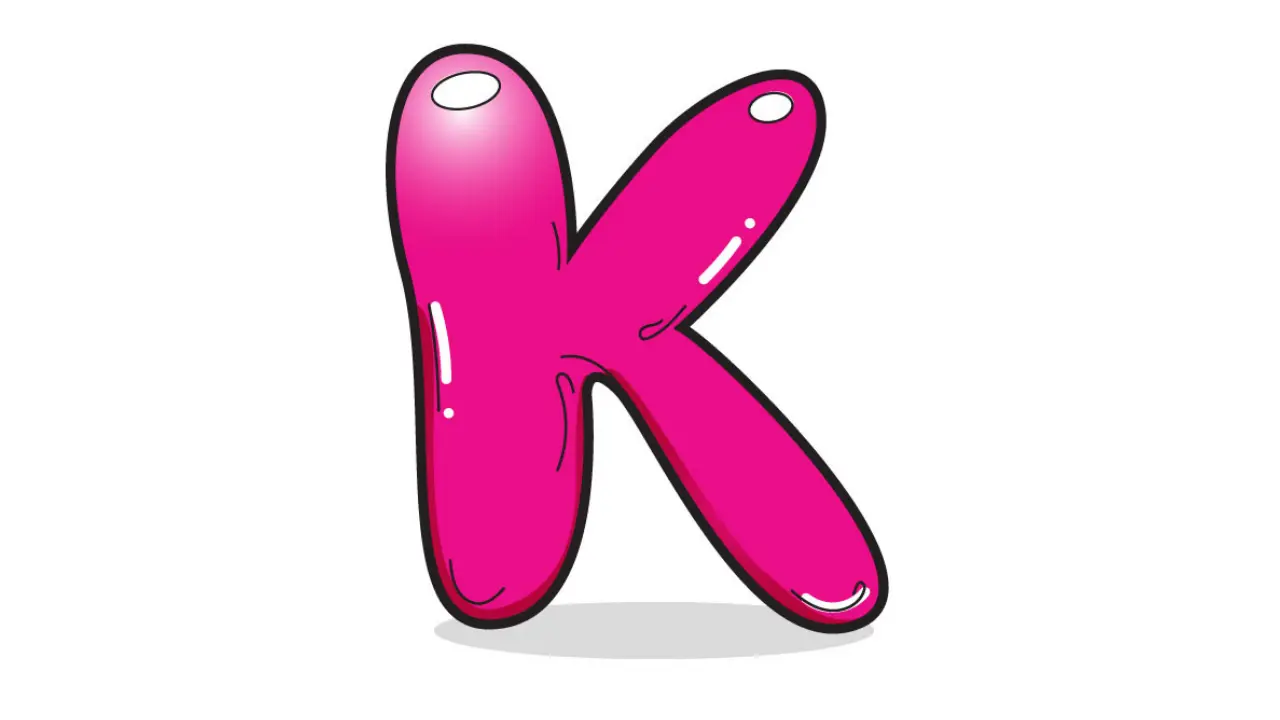
K in Bubble Letters Fun Designs, Styles, and Tips
Learning how to draw k in bubble letters can make handwriting, posters, school projects, and creative artwork more attractive. Bubble lettering gives normal letters a soft, rounded, and playful appearance. The letter K can look especially creative because its straight lines and angled strokes provide plenty of space for different styles.
Bubble letters are popular among students, artists, designers, and people who enjoy hand lettering. You do not need advanced drawing skills to create them. With a pencil, paper, and a little practice, anyone can turn a simple letter K into an eye-catching bubble design.
What Does K in Bubble Letters Look Like?
A k in bubble letters usually keeps the basic shape of a normal K but uses thick and rounded lines. Instead of sharp corners, the edges appear soft and curved. The result often looks similar to an inflated letter or a balloon.
Artists can create uppercase or lowercase versions. An uppercase K usually has one tall vertical section and two rounded diagonal arms. A lowercase K can look softer and more compact, making it useful for names, notebooks, or decorative text.
The beauty of bubble lettering comes from flexibility. There is no single correct way to draw the letter. You can make it wide, narrow, tall, short, simple, colorful, or highly decorated.
How to Draw K in Bubble Letters Step by Step
Drawing k in bubble letters becomes easier when you start with a basic outline. First, lightly draw a regular capital K with a pencil. Keep the lines large enough so you have room to build the bubble effect.
Next, draw another rounded line around each original stroke. Instead of following the sharp angles exactly, soften the corners and create smooth curves. The outer lines should make every section of the K appear thick.
After completing the outline, erase the original guide lines inside the letter. You should now have a clean bubble-shaped K.
Add small details if you want more depth. A short white highlight near one edge can create a shiny balloon effect. You can also add shadows behind the letter to make it appear three-dimensional.
Uppercase and Lowercase Bubble Letter K
The uppercase and lowercase versions offer different visual styles. An uppercase K works well for headings, posters, banners, and initials because it appears bold and noticeable.
A lowercase k in bubble letters can feel more casual and playful. It works well in handwritten words, greeting cards, scrapbook pages, and children’s activities.
You can also combine uppercase and lowercase bubble letters within the same design. However, keeping similar thickness, spacing, and curves helps the lettering look balanced.
Beginners may find the uppercase version easier because its basic structure is clear. Once you feel comfortable drawing it, you can experiment with lowercase styles.
Creative Styles for Bubble Letter K
You can transform a basic bubble K into many creative designs. Color is one of the easiest ways to change its appearance. Bright shades can create a fun style, while pastel colors can make the letter look softer.
Another option is using patterns inside the letter. Stripes, dots, hearts, stars, waves, and checkerboard patterns can add personality.
Artists can also create themed versions of k in bubble letters. For example, a nature-inspired K could contain leaves, flowers, or vines. A space-themed version might feature stars, planets, and small galaxies.
Adding a dark outline around the letter can also make the shape stand out. A thicker border usually creates a cartoon appearance, while a thin border keeps the design simple.
Adding a 3D Effect to Bubble Letter K
Three-dimensional effects can make bubble lettering look more professional. Start by choosing one direction for the shadow, such as down and to the right.
Draw short lines extending from the outer edges of the letter in the same direction. Connect these lines to create the illusion of depth.
Shade the new sections slightly darker than the main letter. This contrast makes your k in bubble letters appear raised from the page.
Highlights can improve the effect even more. Leave a small white area near the top or side of each rounded section. This simple technique creates the appearance of light reflecting from a shiny surface.
Best Tools for Drawing Bubble Letters
You do not need expensive equipment to practice bubble lettering. A basic pencil and eraser are enough when learning the shape.
Once you feel confident, you can use markers, colored pencils, gel pens, crayons, or brush pens. Fine-tip black markers work especially well for outlining.
Digital drawing apps also allow you to create smooth bubble letters. A tablet or drawing software makes it easy to change colors, resize letters, add shadows, and correct mistakes.
Using reference designs can also help beginners understand proportions, shadows, highlights, and decorative techniques.
Final Thoughts
Drawing k in bubble letters is a simple and enjoyable way to make the letter K more creative. Start with a basic K, build a rounded outline around it, erase the guide lines, and then add colors, patterns, shadows, or highlights. With regular practice, you can create attractive bubble letters for posters, artwork, school projects, digital designs, and personalized decorations.